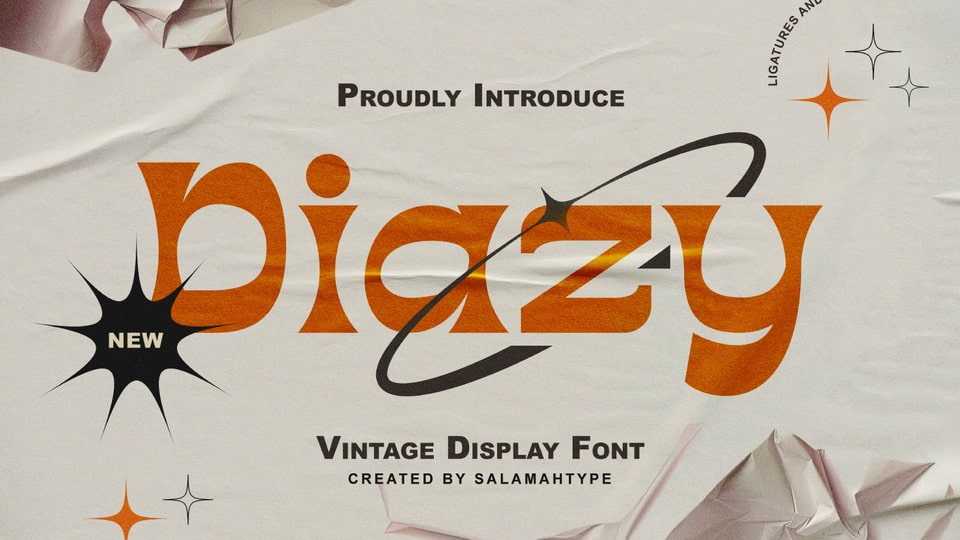
Download Diazy font, a unique typeface with a modern or classic style, its beautiful shape makes the letters beautiful to look at. This font is perfect for branding projects, film/movie projects, logo designs, social media and so on.